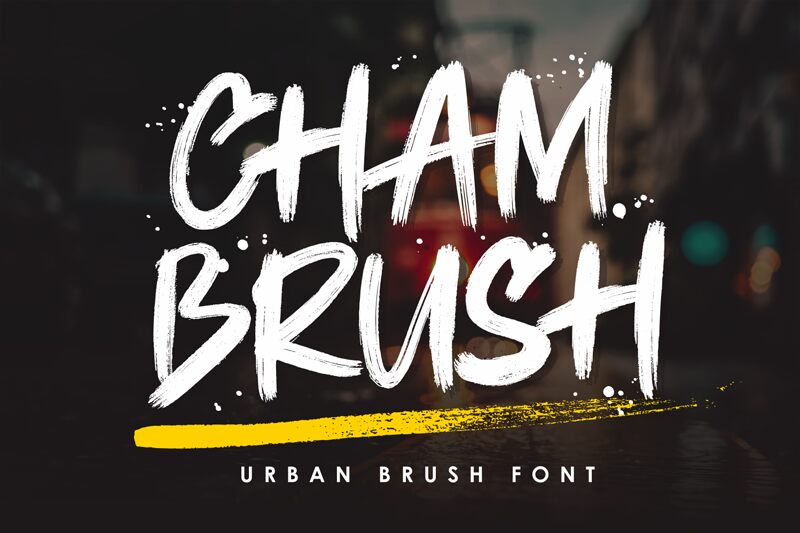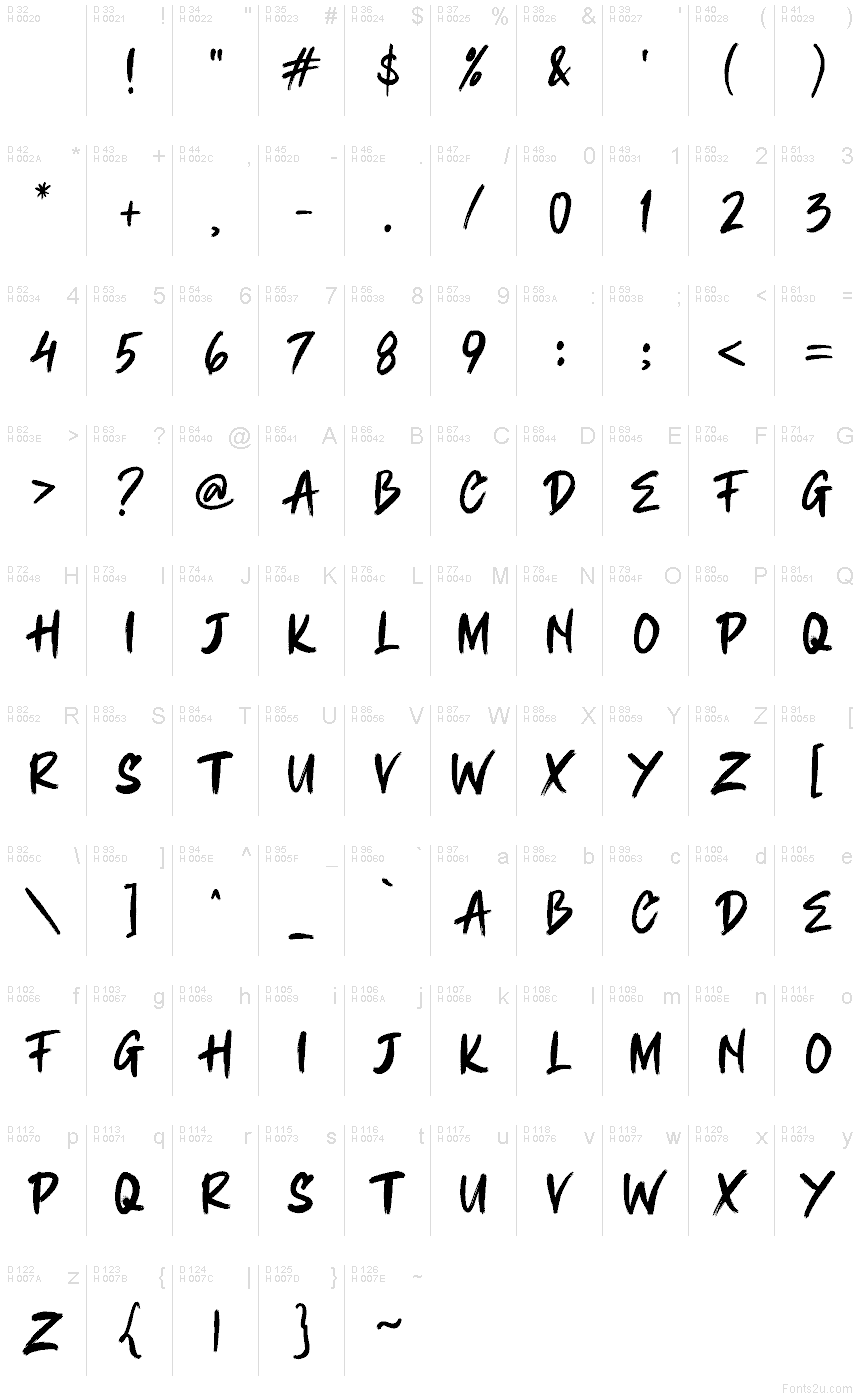
CHAMBRUSH
Chambrush font by Girinesia.std is a free bold brush display font that fixes a common headache: you want raw, inky energy without losing legibility. Its strokes feel dry-brushed and fast, with frayed edges, subtle splatters, and a steady vertical rhythm that keeps words readable at a glance. The spacing breathes just enough, so even stacked, all-caps lines don’t collapse into a blob.
This free font shines on streetwear logos, festival posters, menu boards, sports graphics, album covers, and punchy social promos. Using Chambrush gives headlines a hand-painted snap that cuts through busy layouts. Keep it large, then pair with a clean geometric sans for body copy to let the texture lead.